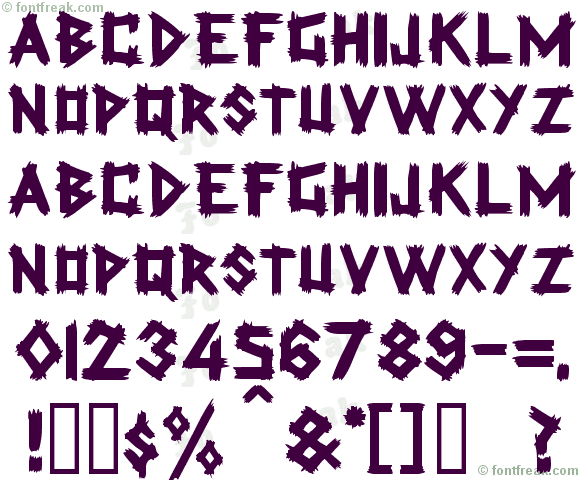
Rockmaker
About Rockmaker
The Rockmaker font by Dieter Steffmann is an eye-catching display typeface that embodies a raw, rugged aesthetic. This decorative font features sharp, jagged edges that give it a handcrafted, almost graffiti-like appearance. The stroke weight varies throughout, contributing to its dynamic and robust look while maintaining a sense of legibility. The spacing between characters is tight, enhancing the font's bold presence, making it an excellent choice for attention-grabbing titles and headings.
Ideal for a variety of creative projects, the Rockmaker font shines in specific use cases such as music album covers, where its edgy vibe can resonate with rock and alternative genres. It also works well for urban-themed posters, attracting audiences with its modern yet rebellious spirit. Additionally, this font can elevate restaurant menus, particularly for establishments that embrace a casual or eclectic atmosphere. Wedding invitations that aim for a unique and unconventional flair can also benefit from this font, adding a personal touch that stands out.
What sets the Rockmaker font apart is its ability to evoke raw emotion through its unique visual style. The combination of its striking, jagged forms and bold character makes it a versatile tool for designers looking to make a statement. Whether you’re crafting a compelling ad, rebranding, or simply exploring creative avenues, the Rockmaker font free download is an exceptional addition to any typographic toolkit.